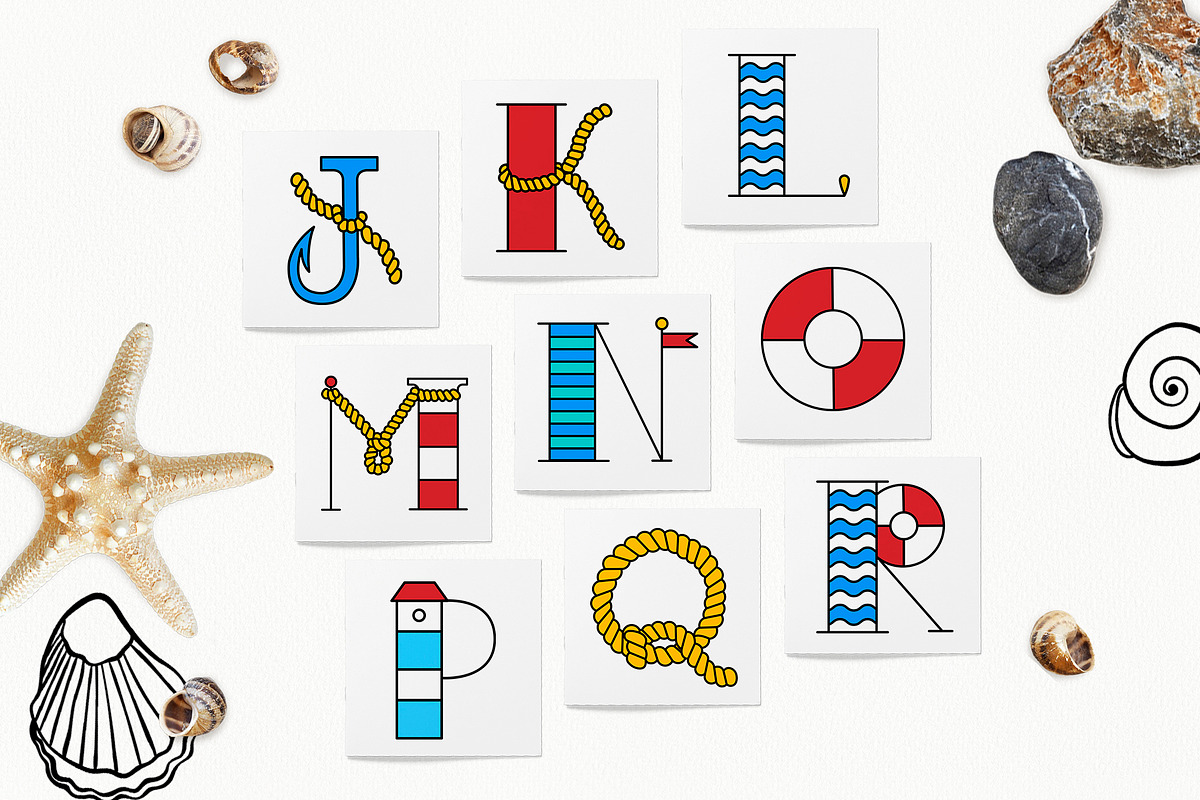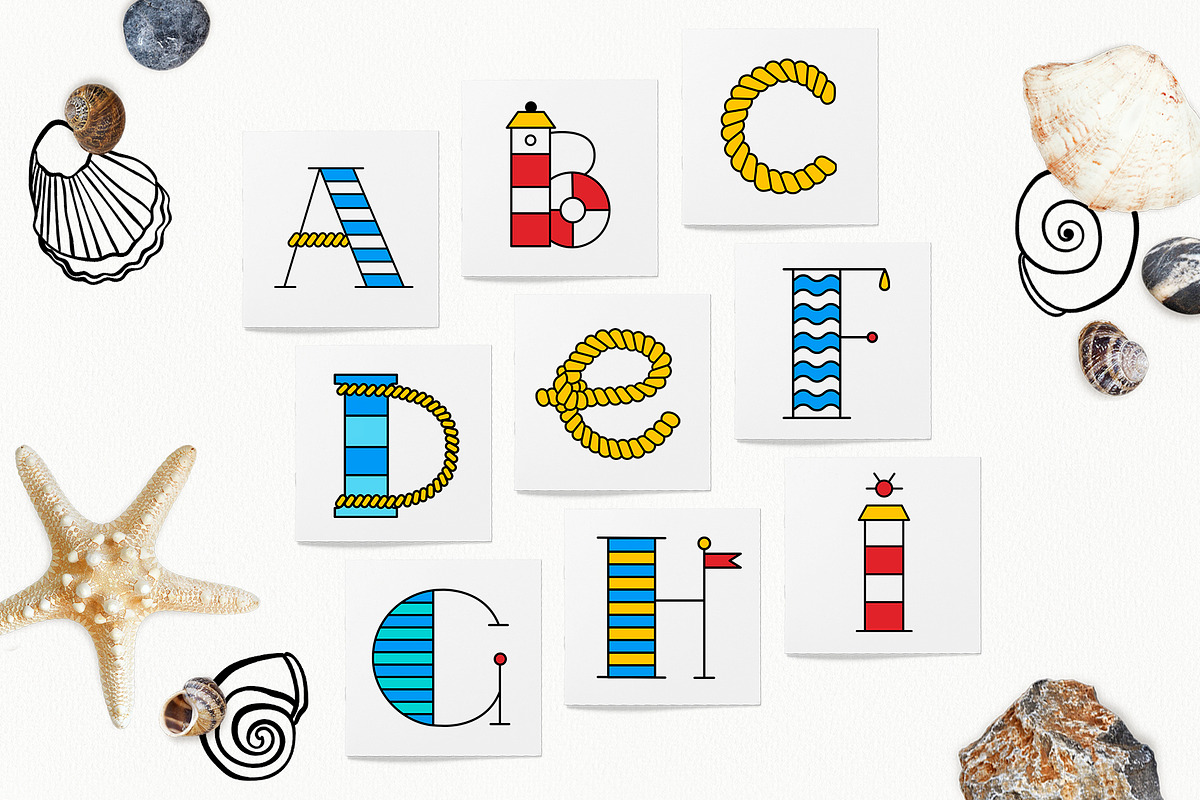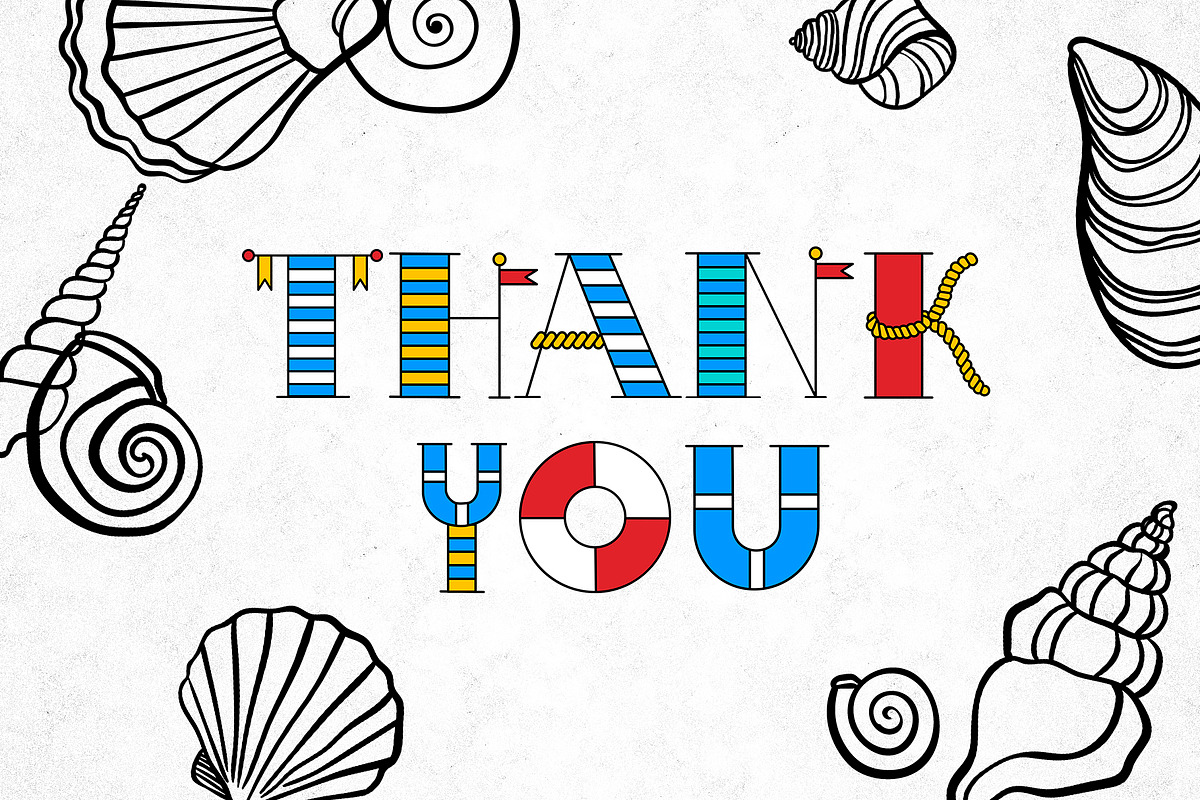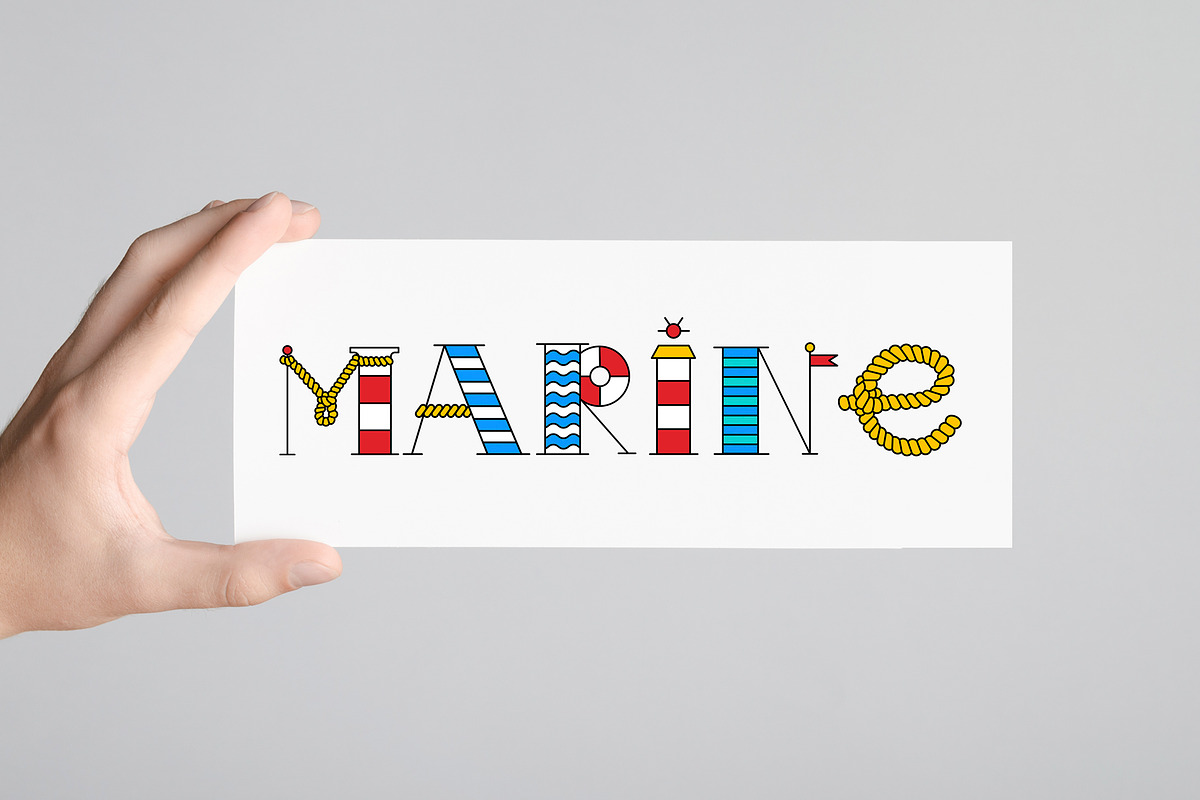
"Hello Sailor" Display Typeface
"Hello Sailor" Display Typeface it's a hand drawn sea alphabet in vector. It's not a font, every letter is separated. Creating this cute lettering I was inspired by the beauty of the seaside. This decorative alphabet will be good for use in projects related to the sea, ocean, beach, summer. It can be used as monogram, initials, for text decoration, greeting cards, prints, posters, kids stuff and other designs. Also I added to the product a set of linear illustrations of seashell as a bonus for you! :)